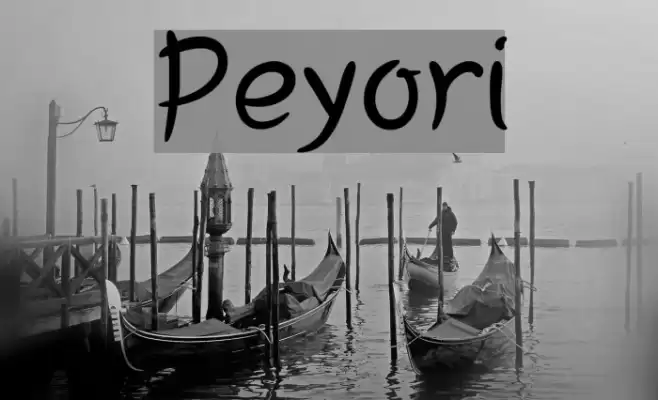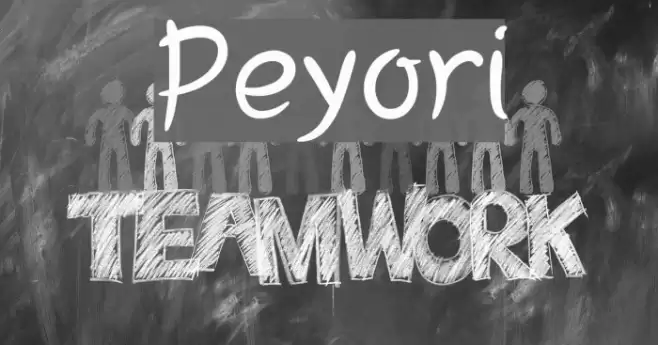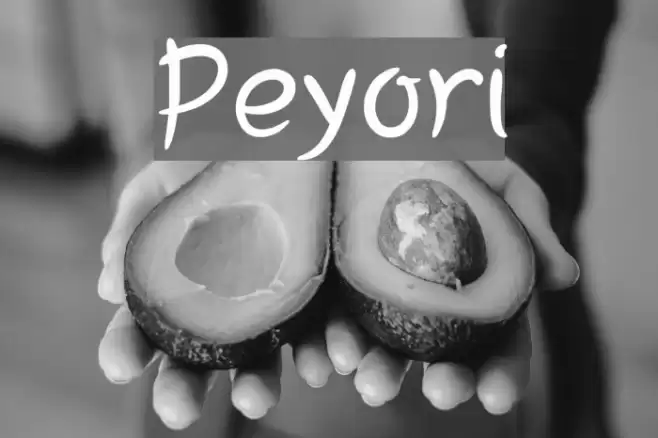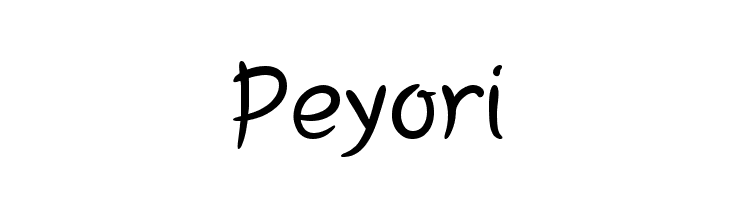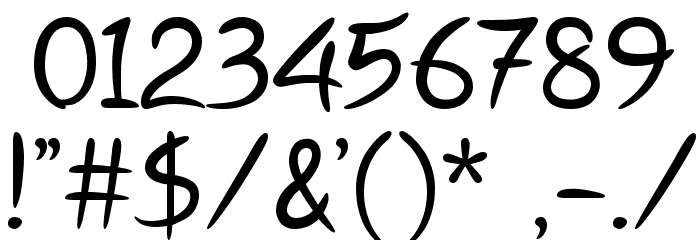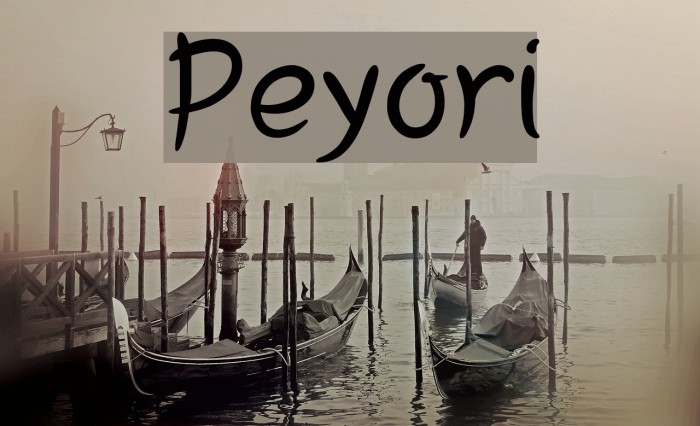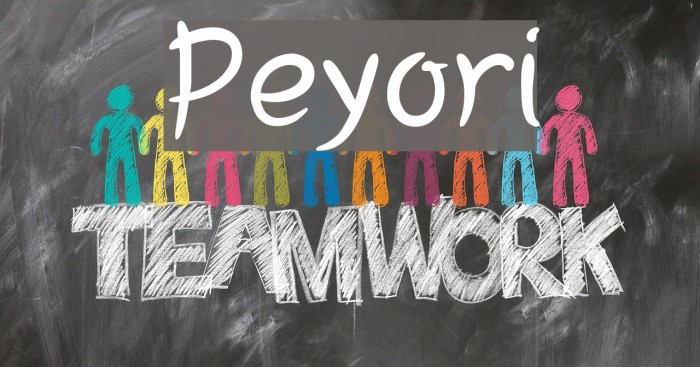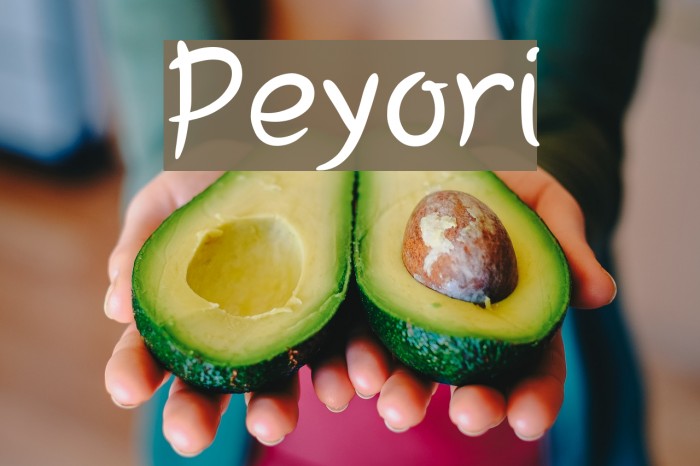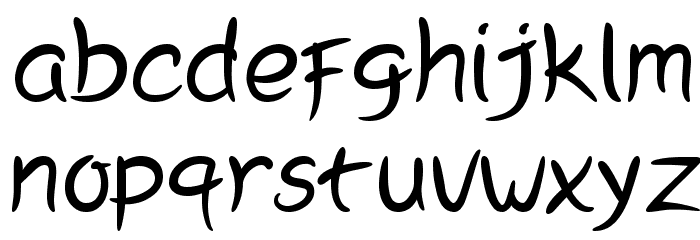
Peyori Font
Peyori Description
This font exhibits a playful and dynamic handwritten style, characterized by its fluid and slightly irregular strokes. The letters have a casual and informal appearance, with a slight slant that adds to the energetic feel. The uppercase letters are bold and prominent, while the lowercase letters maintain a consistent flow, enhancing readability. The numerals and special characters are crafted with the same lively touch, ensuring a cohesive look across all elements. This font's unique personality makes it suitable for projects that require a personal or creative touch.
A playful, handwritten font with dynamic strokes and a casual style from Handwritten fonts.
- Proposed Projects: Ideal for greeting cards, invitations, personal branding, and creative projects.
- Overall Style: Casual, Playful
- Use Case: Logos, Invitations, Creative projects